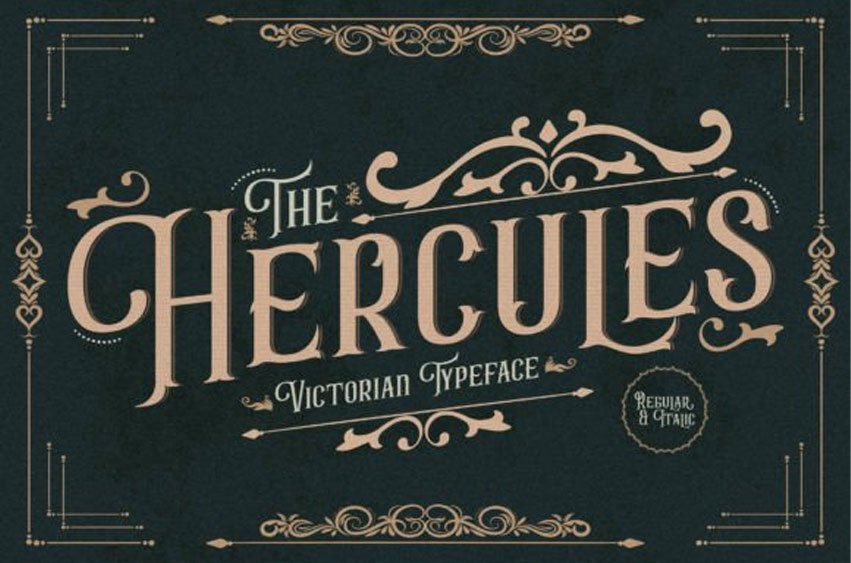
Hercules Font is a modern and stylish serif typeface that has its own unique style and modern look.
This font is perfect for an elegant and luxurious logo, book or movie title design, fashion brand, magazine, clothes, lettering, quotes, and so much more.